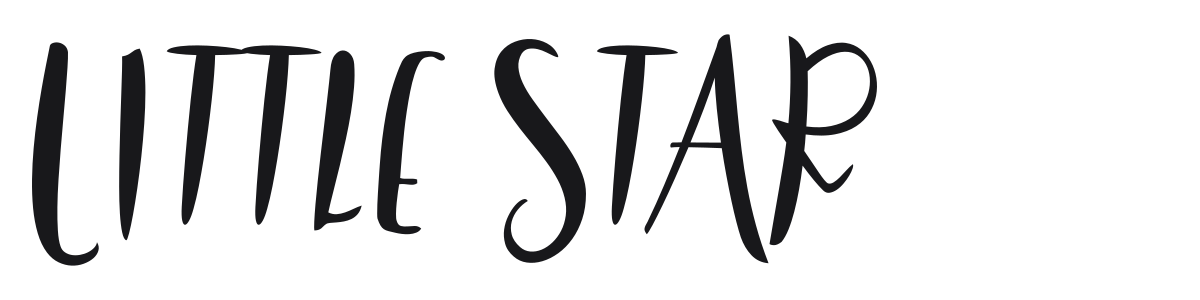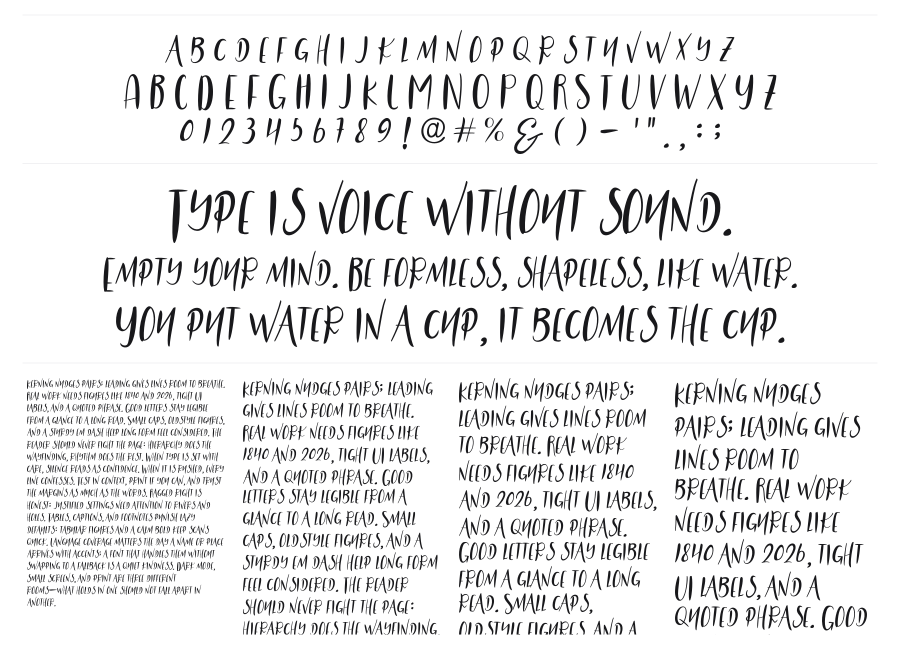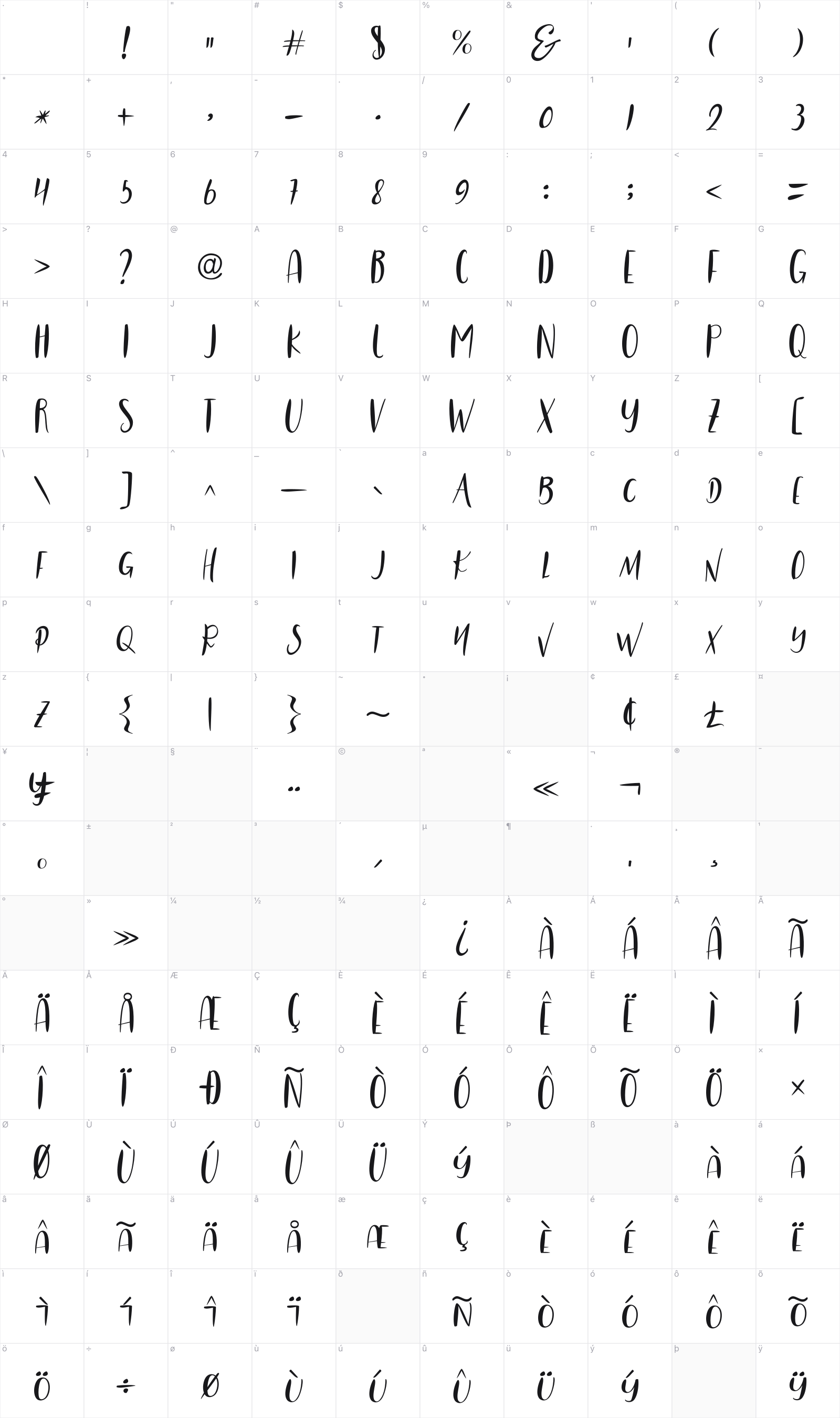
Little Star
by Sofian
Little Star is a lively brush script with thick-to-thin strokes and the loose energy of hand-lettering done with real ink. The characters vary in angle and scale just enough to feel spontaneous without losing legibility at display sizes. It carries the casual warmth that works well for lifestyle brands, packaging, and celebratory designs.